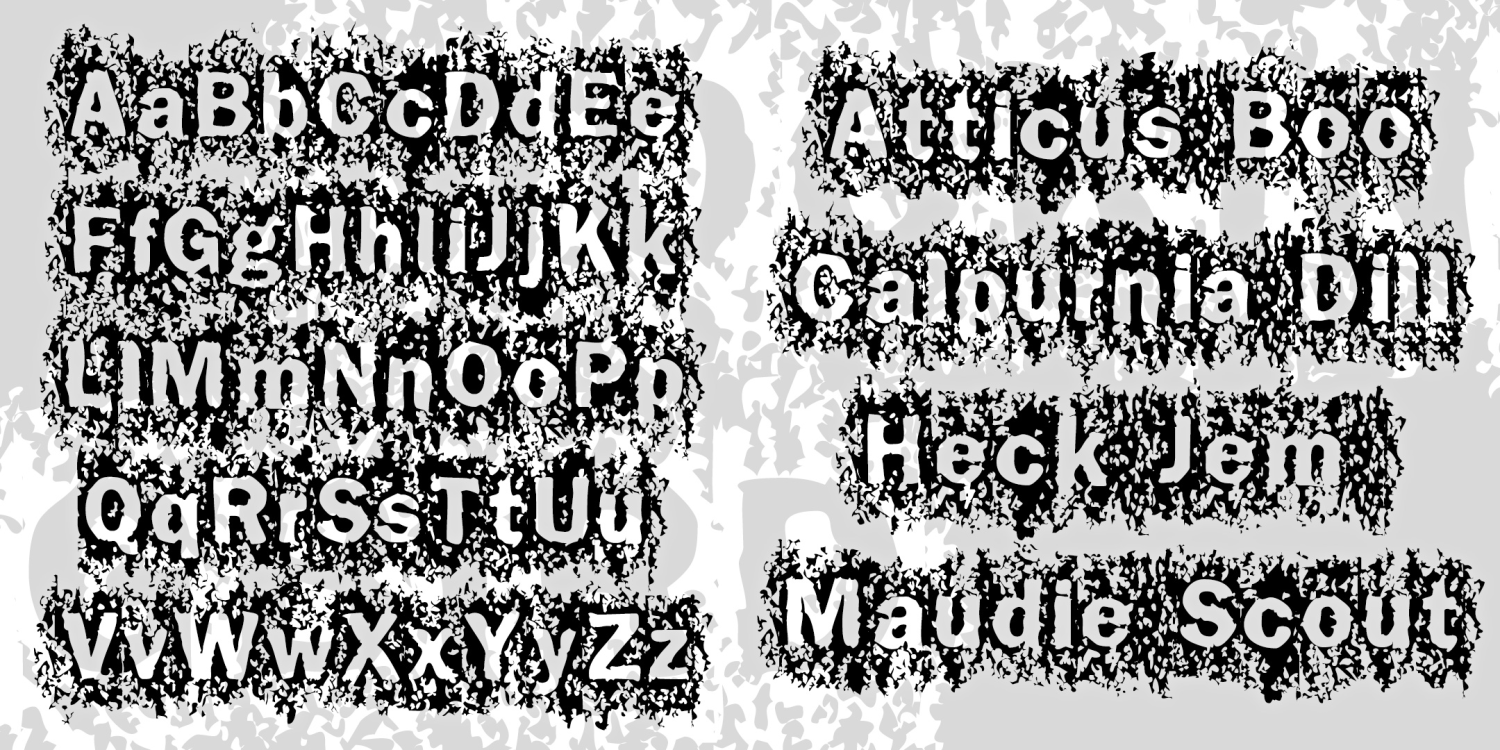
Mockingbird
About Mockingbird
MOCKINGBIRD is bold and textured. It was inspired by the opening titles of the 1962 classic film "To Kill a Mockingbird," title designer, Stephen Frankfurt. I began by making a photopolymer plate of the letters and then a rubbing of the plate…